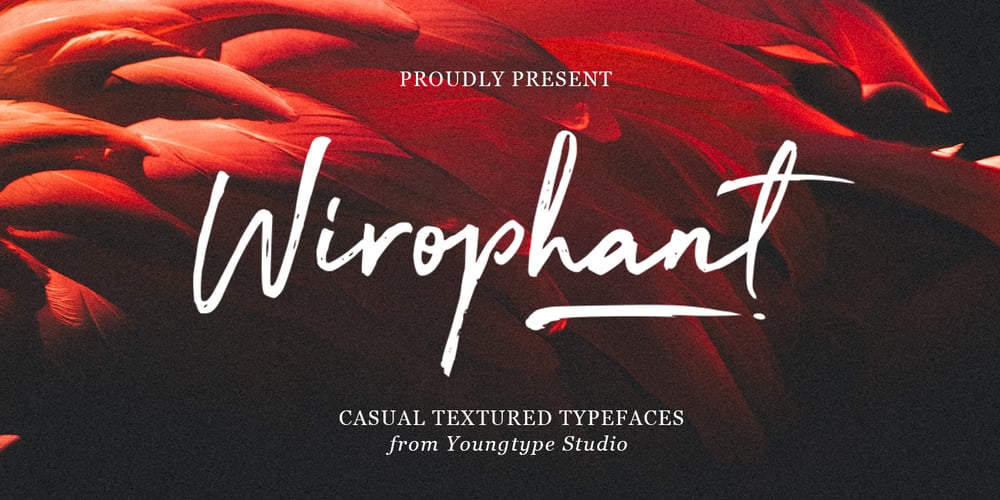
Wirophant Font Family was designed by Naufal Paramata and published by Youngtype. Wirophant contains 2 styles and family package options. Wirophant are modern font sets featuring an organic, dynamic and energetic style. They can be used for a variety of purposes, such as titles, signatures, logos, correspondence, wedding invitations, letterheads, nameplates, labels, newsletters, posters, badges and much more.To enable the OpenType Stylistic alternative, you need a program that supports OpenType features such as Adobe Illustrator CS, Adobe Indesign & CorelDraw X6-X7, Microsoft Word 2010 or a later version.Contains full set: Uppercase Lowercase Ligatures Punctuation number multilingual support. Thank You